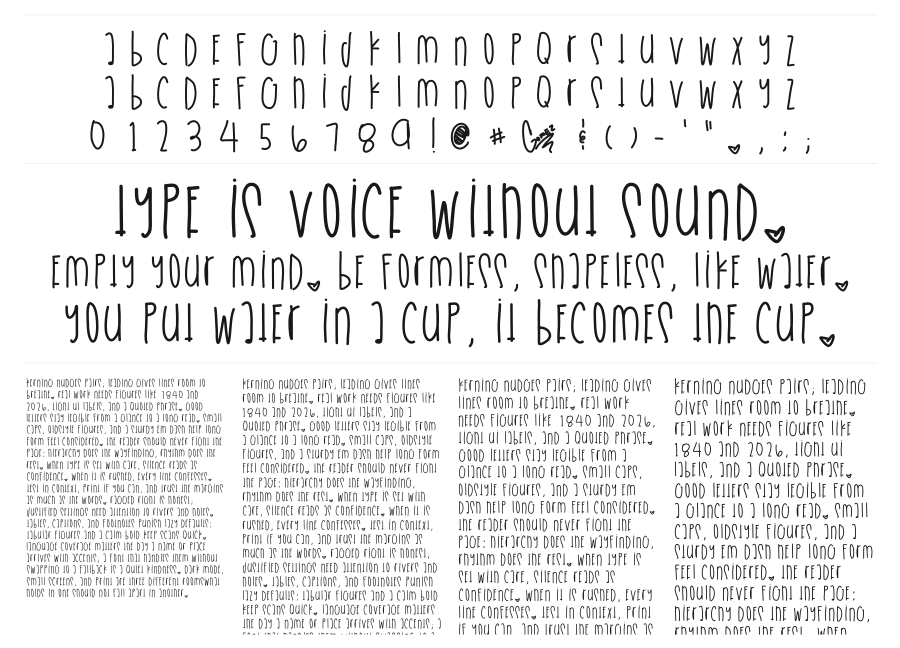
Sneaker Collector
by Des Gomez
Sneaker Collector is a tall, condensed novelty face from Des Gomez with thin, hand-drawn letterforms that feel loose and slightly offbeat. The narrow proportions and quirky character shapes give it a casual, sketchbook personality, like lettering someone doodled in the margins during a long phone call. Best for headlines and display use where you want something playful and lightweight that doesn't look like it came out of a font menu.